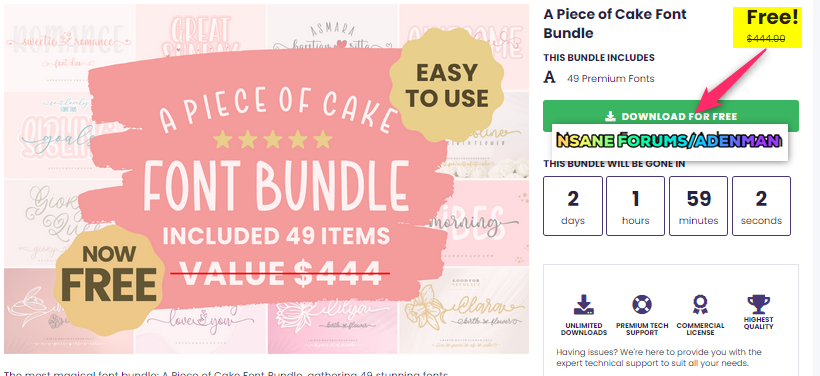
Make your crafting projects come to life. Use gorgeous fonts on everything from invitations to business cards – they’re perfect for any project! Get A Piece of Cake Font Bundle includes a commercial license for free!
The most magical font bundle: A Piece of Cake Font Bundle, gathering 49 stunning fonts, including crafted fonts, display fonts, script font, and font duos. With it’s soft and elegant style, these fonts are perfect to use for your upcoming crafting projects this spring. A lifetime commercial license is included!